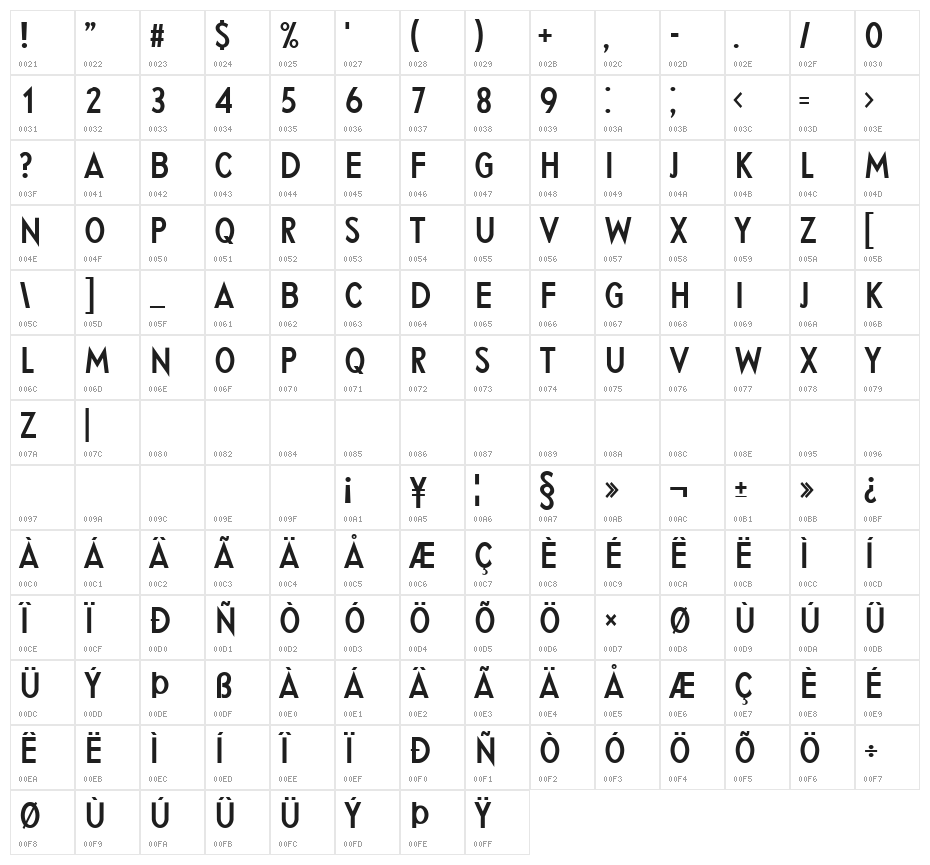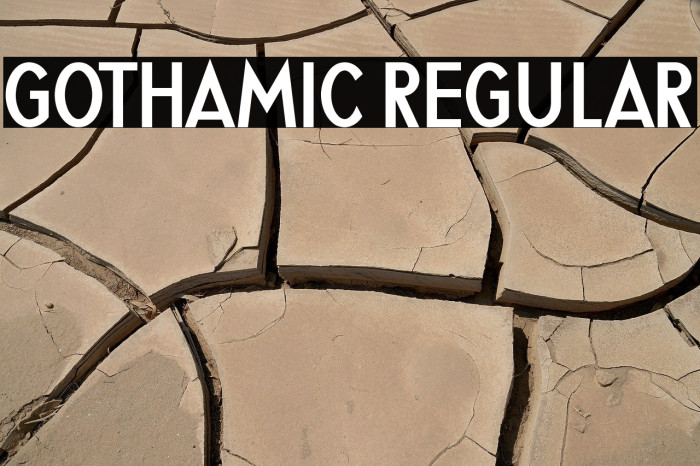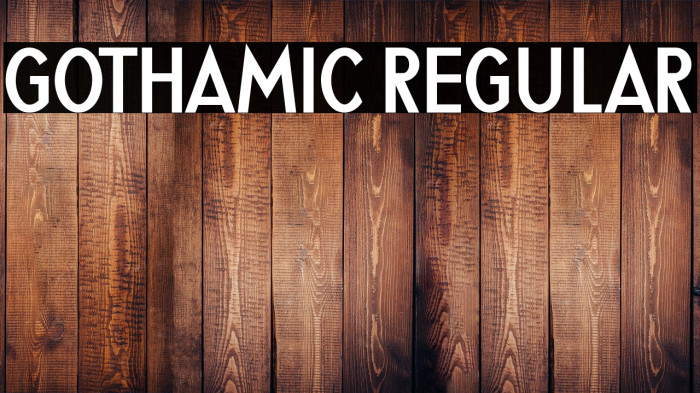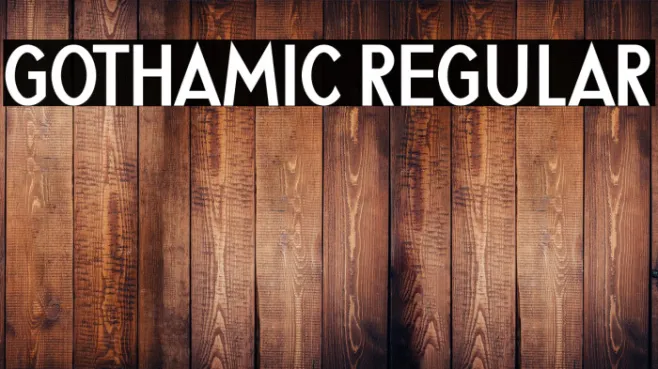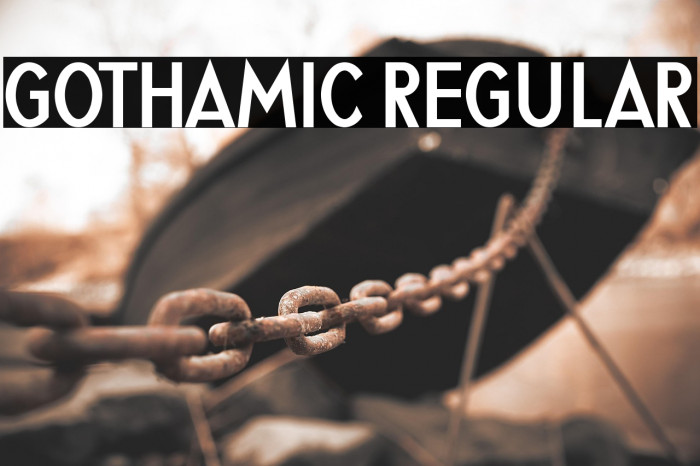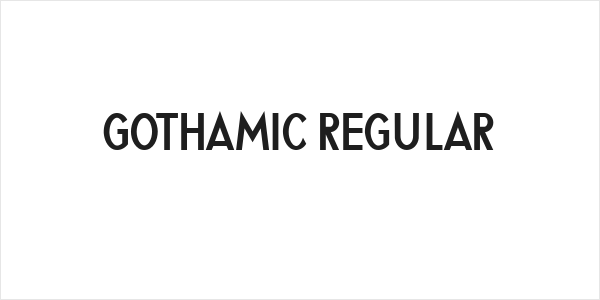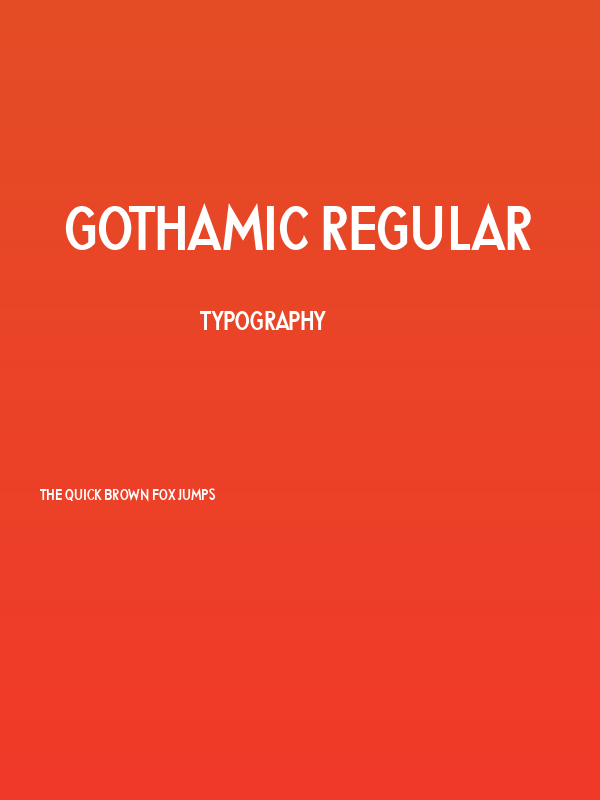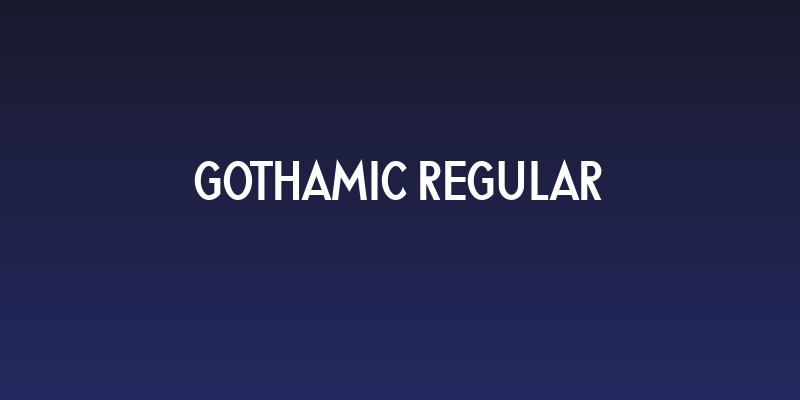
Gothamic Regular Font
Gothamic Regular Description
This font features a clean and modern sans-serif design, characterized by its bold and uniform stroke width. The letters are well-proportioned with a slightly condensed appearance, making it highly legible across various sizes. The uppercase and lowercase letters maintain a consistent style, while the numerals are clear and straightforward. The special characters are designed to complement the overall aesthetic, ensuring versatility in use. Its simplicity and clarity make it suitable for a wide range of applications, from digital to print media.
| Proposed Projects | Ideal for branding, advertising, web design, and editorial projects where clarity and modernity are essential. |